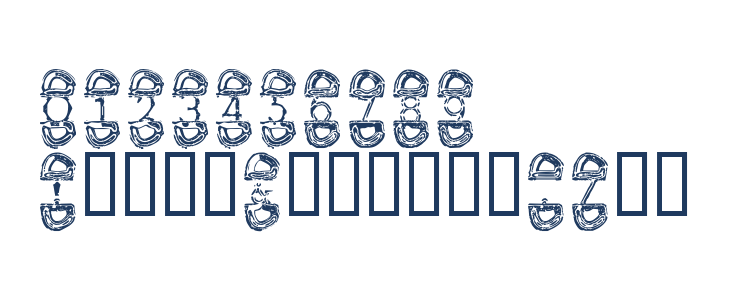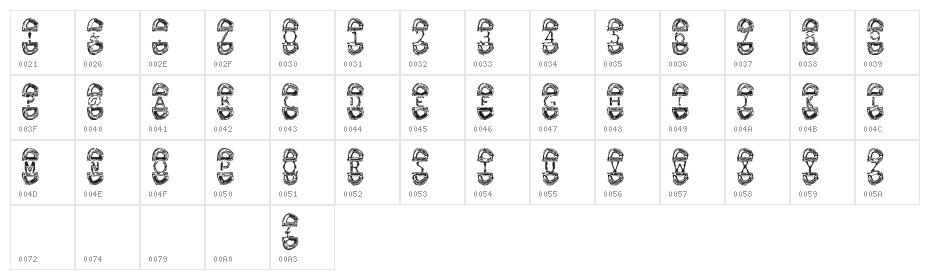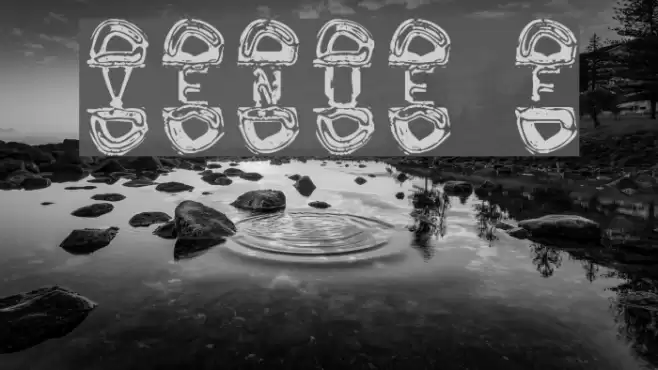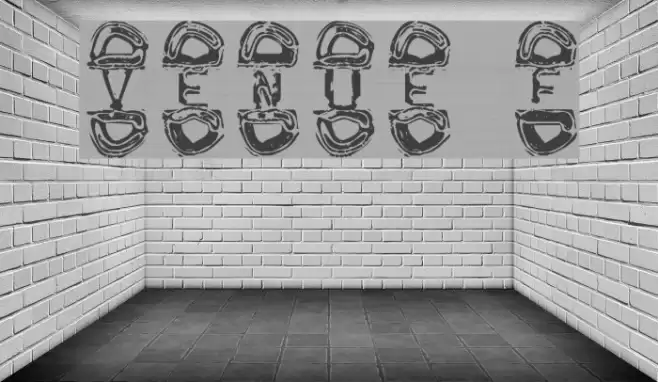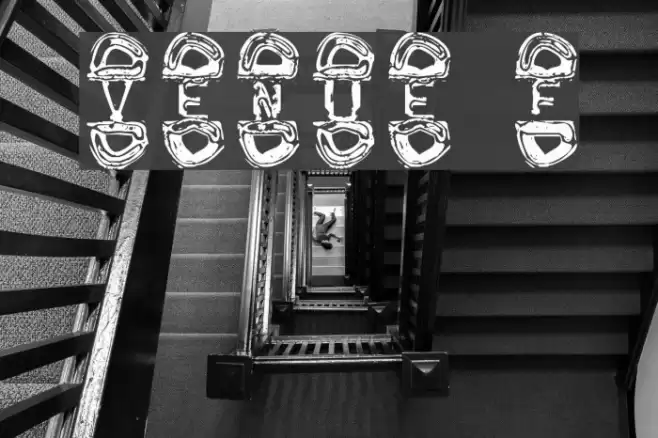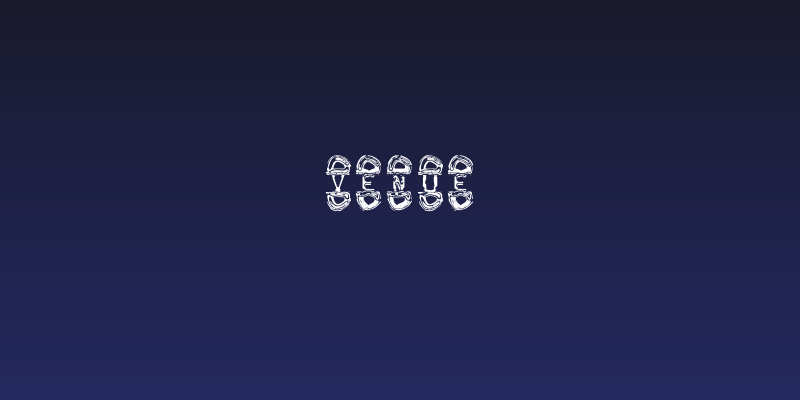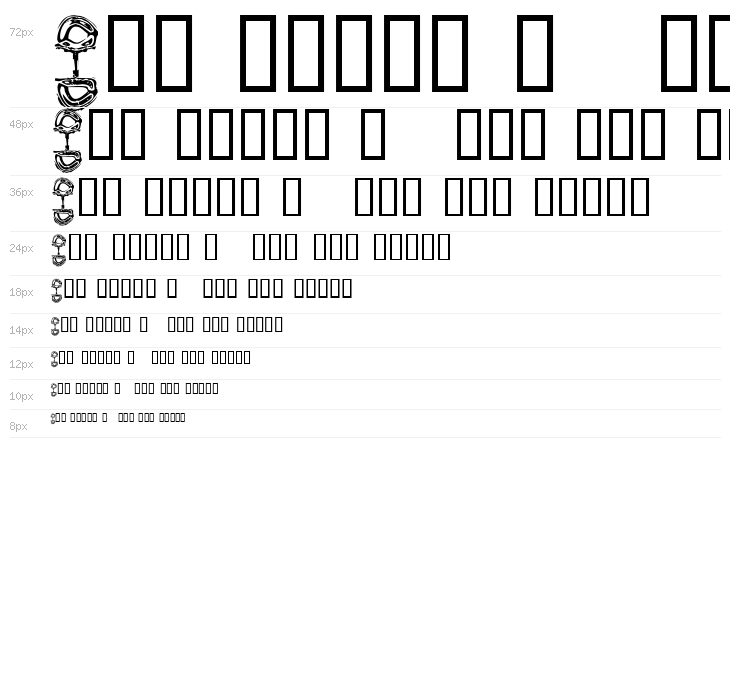
VENUE Font
VENUE Description
This font features a bold and decorative style with a unique, artistic flair. Each character is designed with intricate, overlapping lines that create a sense of depth and texture. The uppercase and lowercase letters maintain a consistent design, with a playful yet structured appearance. The numbers and special characters follow the same artistic theme, making the font cohesive and visually striking. The overall design is reminiscent of hand-drawn or sketched artwork, giving it a distinctive and creative edge.
| Use Case | Logos, Posters, Album Covers |
| Proposed Projects | Ideal for creative projects such as posters, album covers, or branding materials that require a unique and artistic touch. |